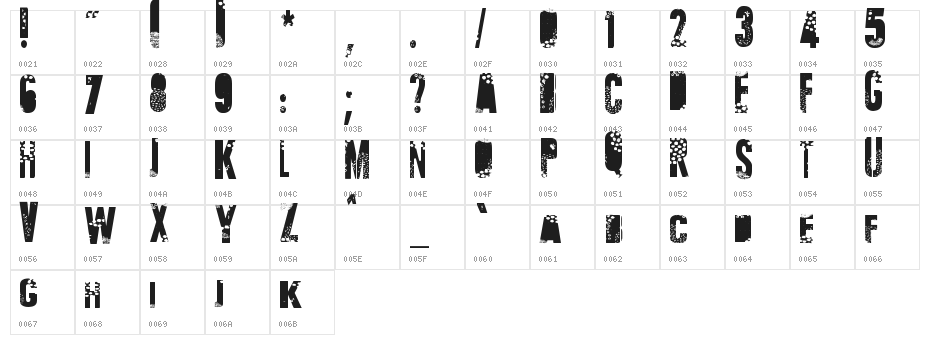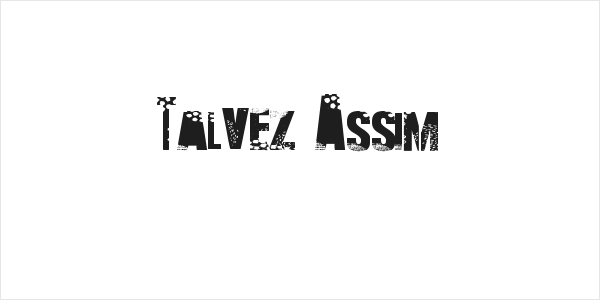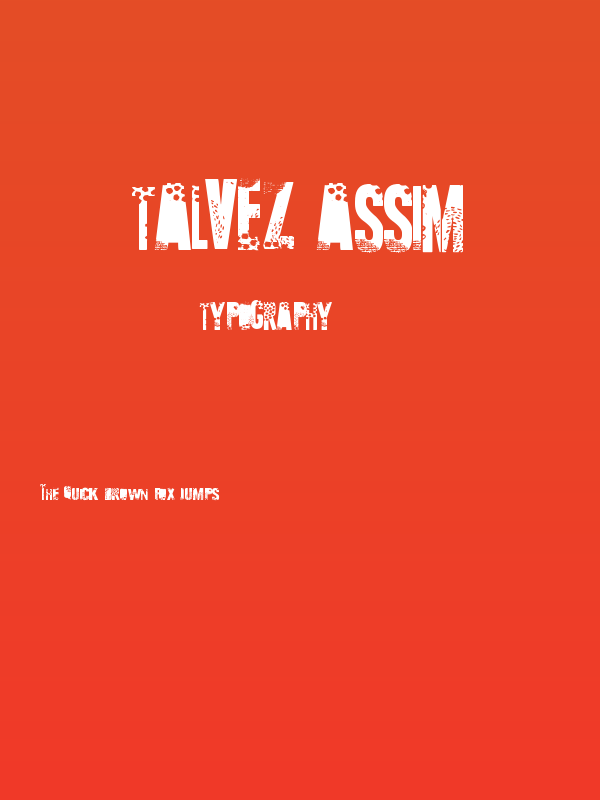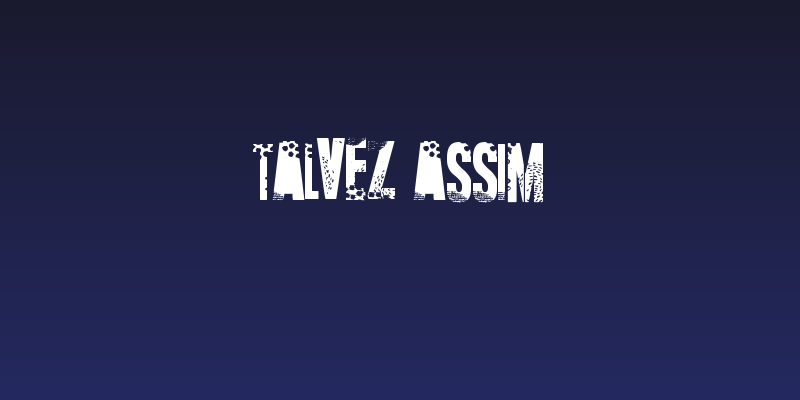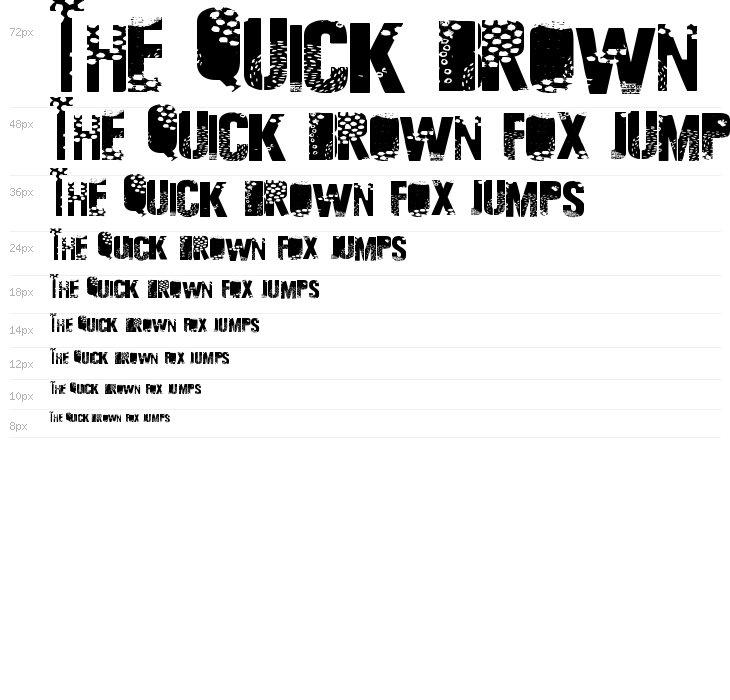
Talvez Assim Font
Talvez Assim Description
This font features a bold, distressed style with a grunge texture that gives it a rugged and edgy appearance. The characters are heavily stylized with irregular patterns and rough edges, creating a sense of movement and chaos. The uppercase and lowercase letters maintain a consistent width, while the numbers and special characters follow the same distressed theme. This font is designed to stand out and make a bold statement, perfect for projects that require a strong visual impact.
| Overall Style | Grunge, Edgy |
| Proposed Projects | Ideal for album covers, posters, streetwear branding, and any design needing a bold, edgy look. |